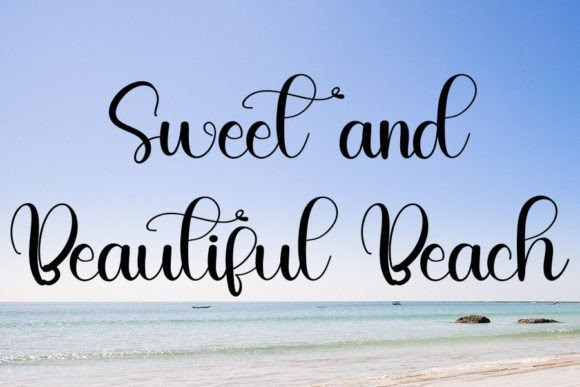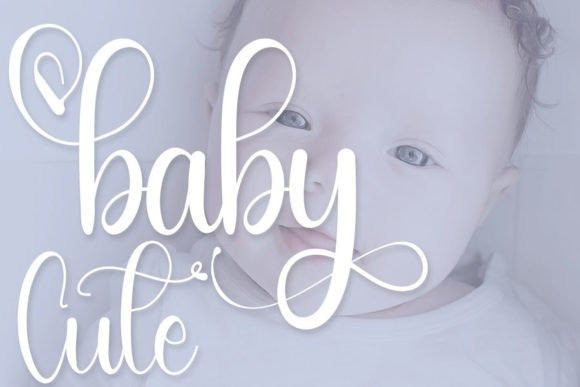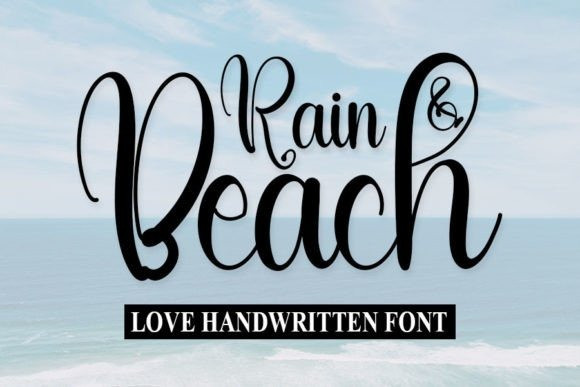
Rain And Beach Font
Rain And Beach Font is an enchanting handwritten font. This versatile script font has a wide spectrum of applications ranging from greeting cards to headlines and is guaranteed to add a romantic feel to your next project.